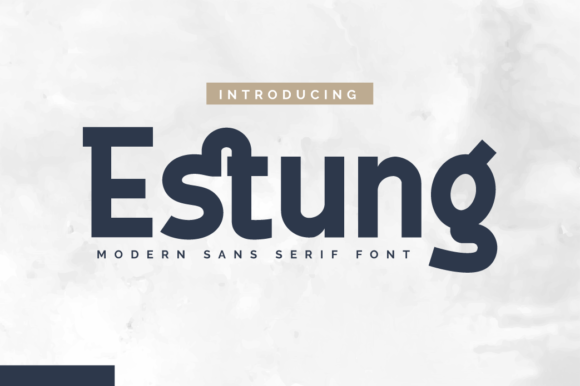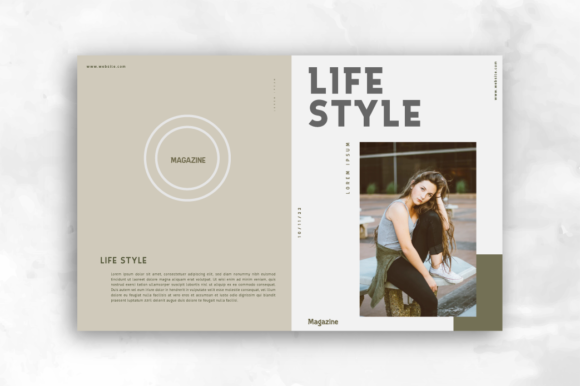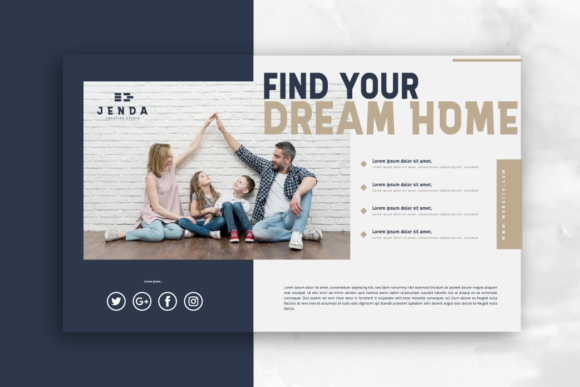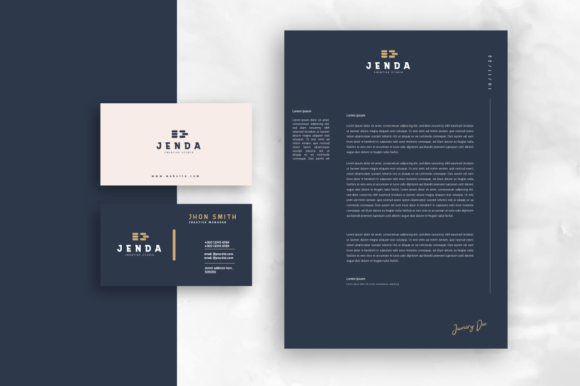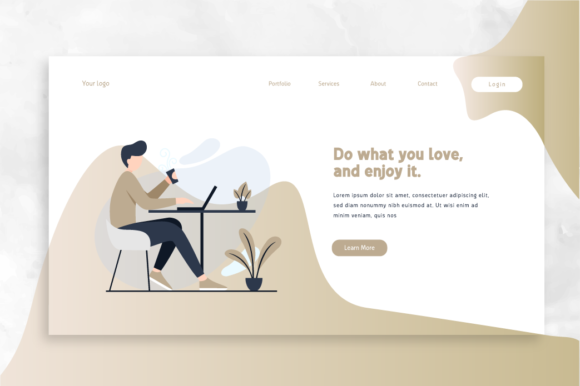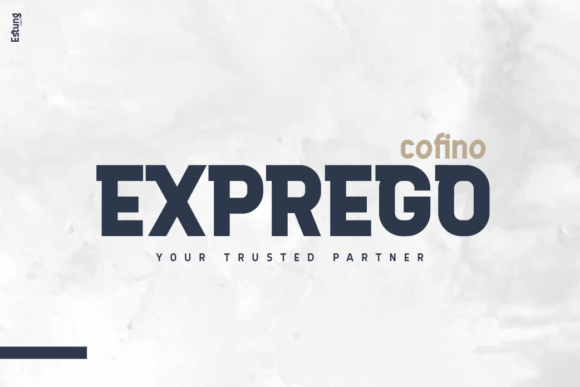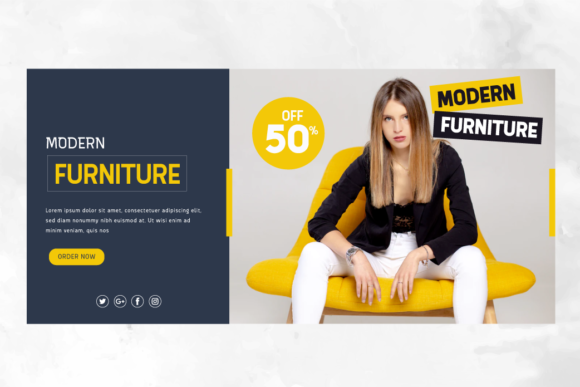
The Perfect Font for Your Next Design Project
There’s nothing quite like the rush of excitement you feel when a design concept finally comes together – the perfect balance of colors, the perfect placement of typography, and the perfect font to tie it all together. For designers, the right font can make all the difference between a good design and a great one. And that’s exactly why we’re excited to introduce you to Estung Font, a modern sans serif font designed to help you create original and outstanding designs.
With its sleek and sophisticated look, Estung Font is the perfect addition to any design project. Whether you’re working on a logo, a brochure, or a website, this font is sure to elevate your design to the next level. And with its PUA encoding, you’ll have access to all of the glyphs and swashes you need to add a personal touch to your work. With Estung Font, the possibilities are endless, and we can’t wait to see what you create.
Estung Font Key Features
- Font Family: Estung Font is a sans-serif font family designed for modern typography.
- Font Size: Available in various sizes, including 12pt, 14pt, 18pt, and 24pt.
- Resolution: Optimized for high-resolution displays, including 4K and Retina screens.
- Unique Characteristics: Estung Font features a clean and minimalist design, with a unique blend of geometric and organic shapes.
Estung Font Review
I recently had the chance to work with the Estung Font, and I must say it’s a mixed bag. There are some things that really work well, but also some limitations that might make it not ideal for every project.
- ✨ Unique Character: Estung Font has a unique character that sets it apart from more common fonts. Its quirky feel can add a touch of personality to your designs.
- ✨ Versatile: This font can be used for a wide range of projects, from logos and branding to digital displays and signage.
- ✨ High-Quality: The font is well-designed and displays well at various sizes and resolutions.
- ⚠️ Readability Issues: In certain contexts, the font can be difficult to read, especially for large blocks of text.
- ⚠️ Limited Support: Estung Font may not be supported by all operating systems or devices, which could lead to rendering issues.
Overall, I think Estung Font is a solid choice for projects where you want to add some personality and flair. However, it may not be the best choice for projects that require clear, easy-to-read text. If you’re willing to work around its limitations, Estung Font can be a great addition to your design toolkit.
Getting the Most Out of Estung Font
Some tips for getting the most out of Estung Font include:
– Experiment with different font sizes and colors to create visually appealing designs.
– Use Estung Font in combination with other fonts to create a unique and interesting typography style.
– Consider using Estung Font for headings and titles to add a touch of elegance and sophistication.
Estung Font is commonly used for:
– Creating elegant and sophisticated designs for business cards, letterheads, and other marketing materials.
– Adding a touch of luxury and sophistication to wedding invitations and other special occasion designs.
– Creating visually appealing typography for social media graphics and other online
Alternatives to Estung Font
Montserrat is a sans-serif font designed for digital use. It’s a great alternative to Estung Font for projects that require a clean and modern look. Montserrat has a more geometric and structured feel compared to Estung Font, making it ideal for digital products and apps. When to use: For digital products, apps, and websites that require a modern and clean aesthetic.
Avenir is a geometric sans-serif font designed by Adrian Frutiger. It has a more elegant and refined feel compared to Estung Font, making it suitable for high-end projects and luxury brands. Avenir has a more structured and symmetrical design, which gives it a sense of sophistication and elegance. When to use: For high-end projects, luxury brands, and any project that requires a sense of sophistication and elegance.
Is Estung Font available in different weights?
Yes, Estung Font is available in multiple weights, including Light, Regular, Medium, Bold, and Black. Each weight is carefully designed to provide a consistent and harmonious visual identity across different design elements. You can choose the weight that best suits your design needs and style.